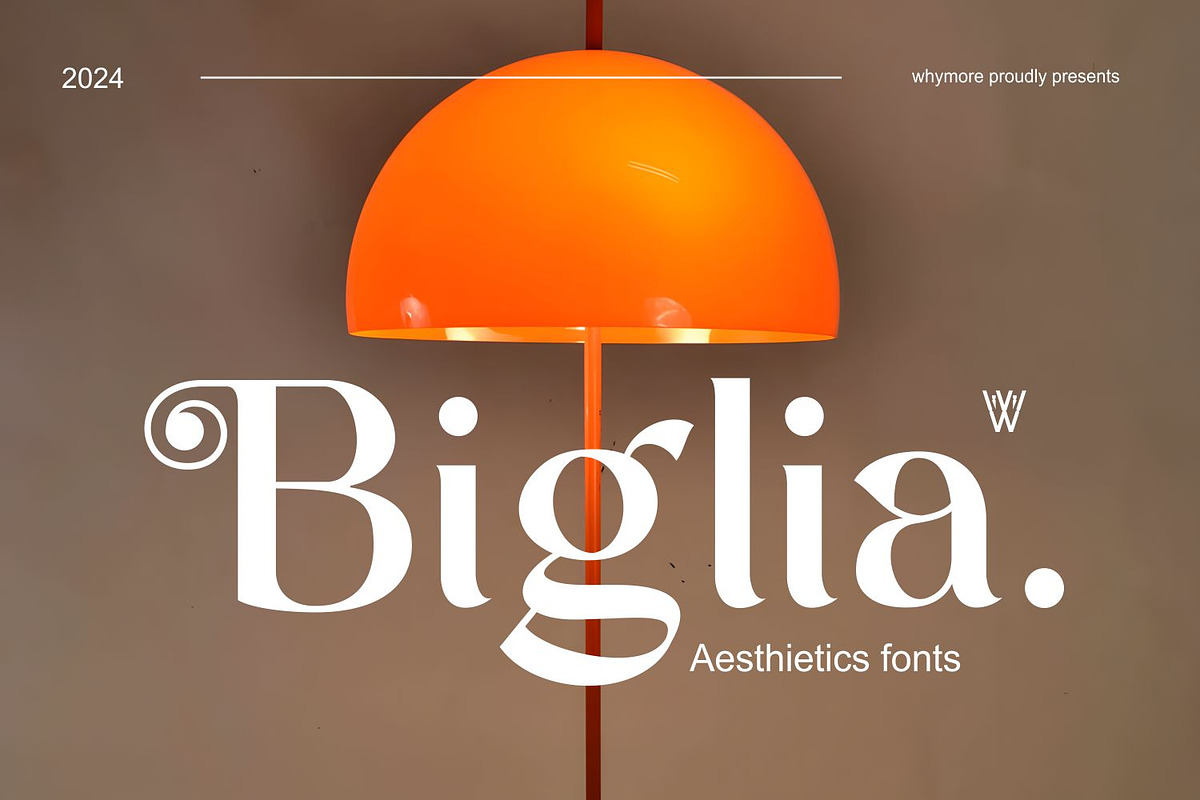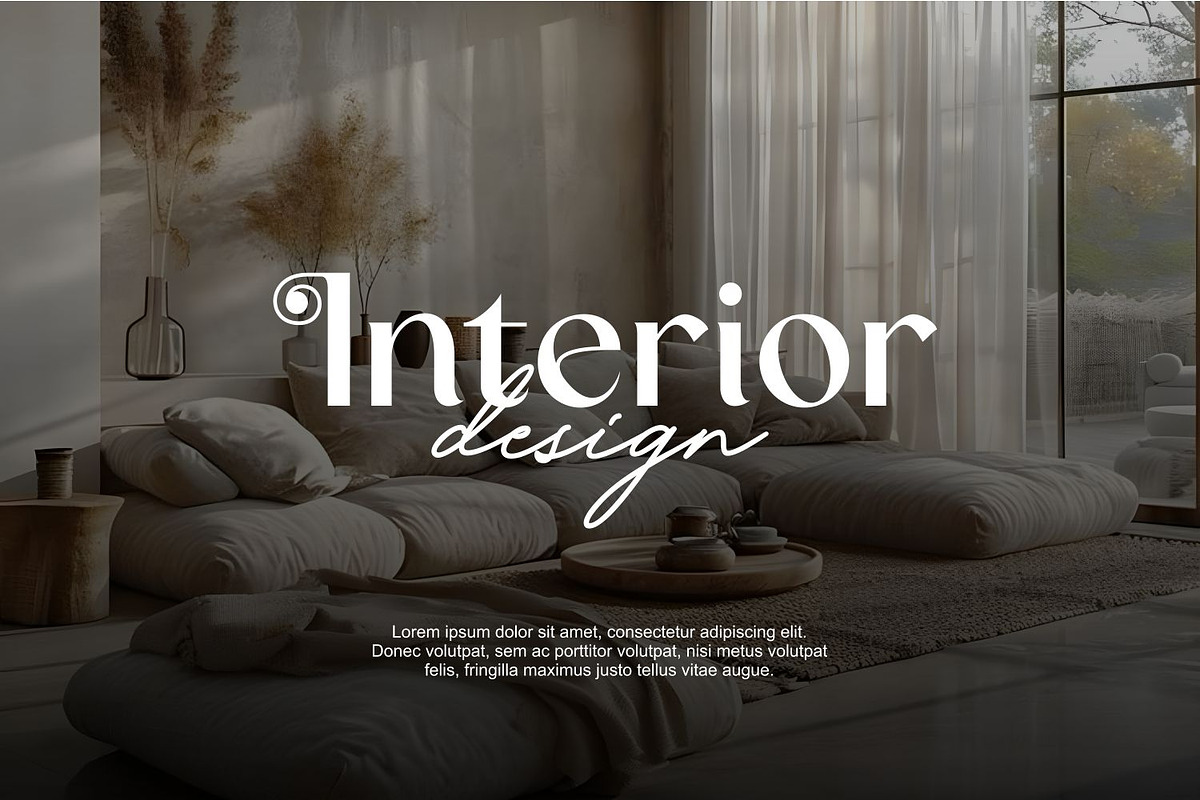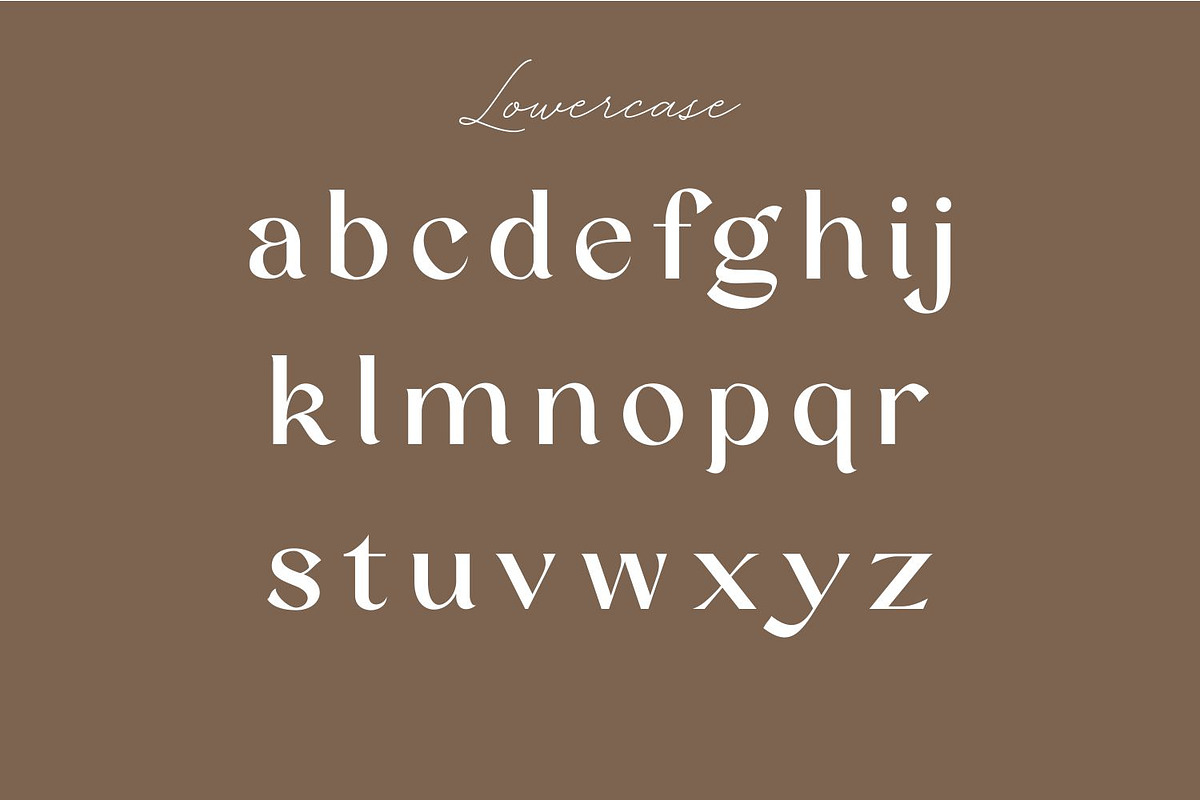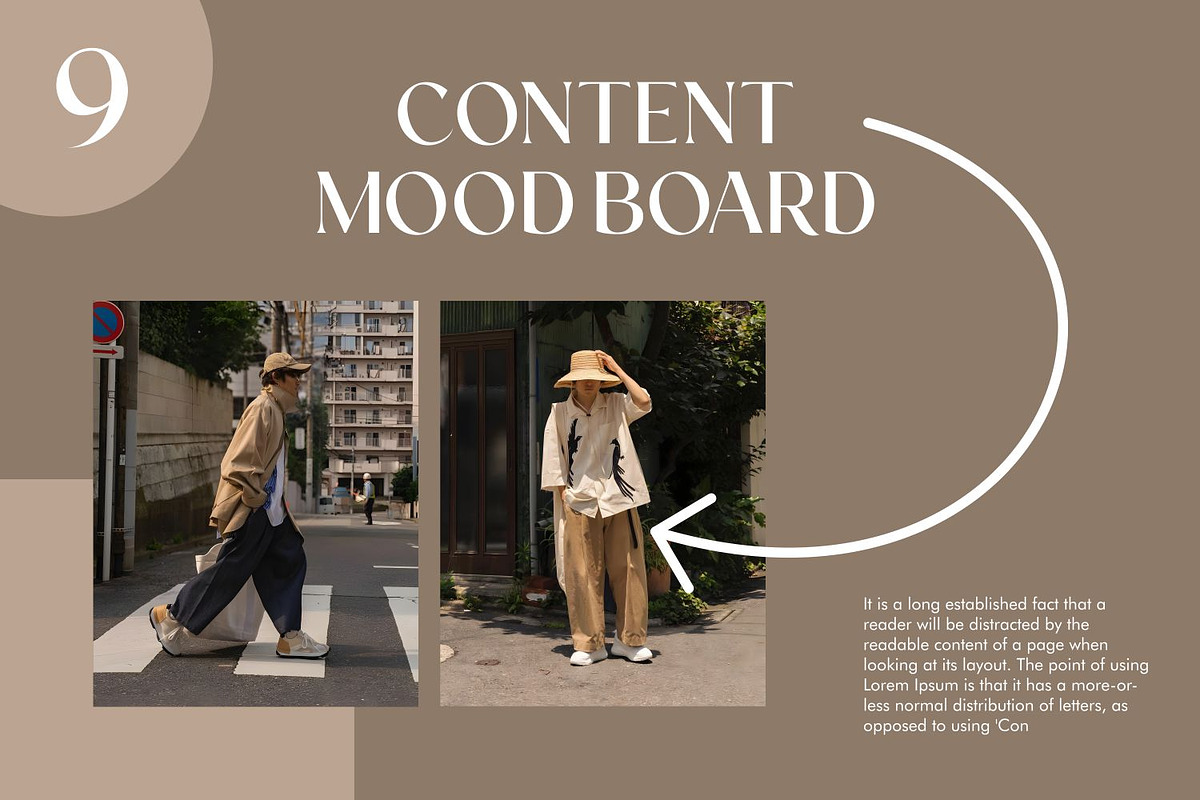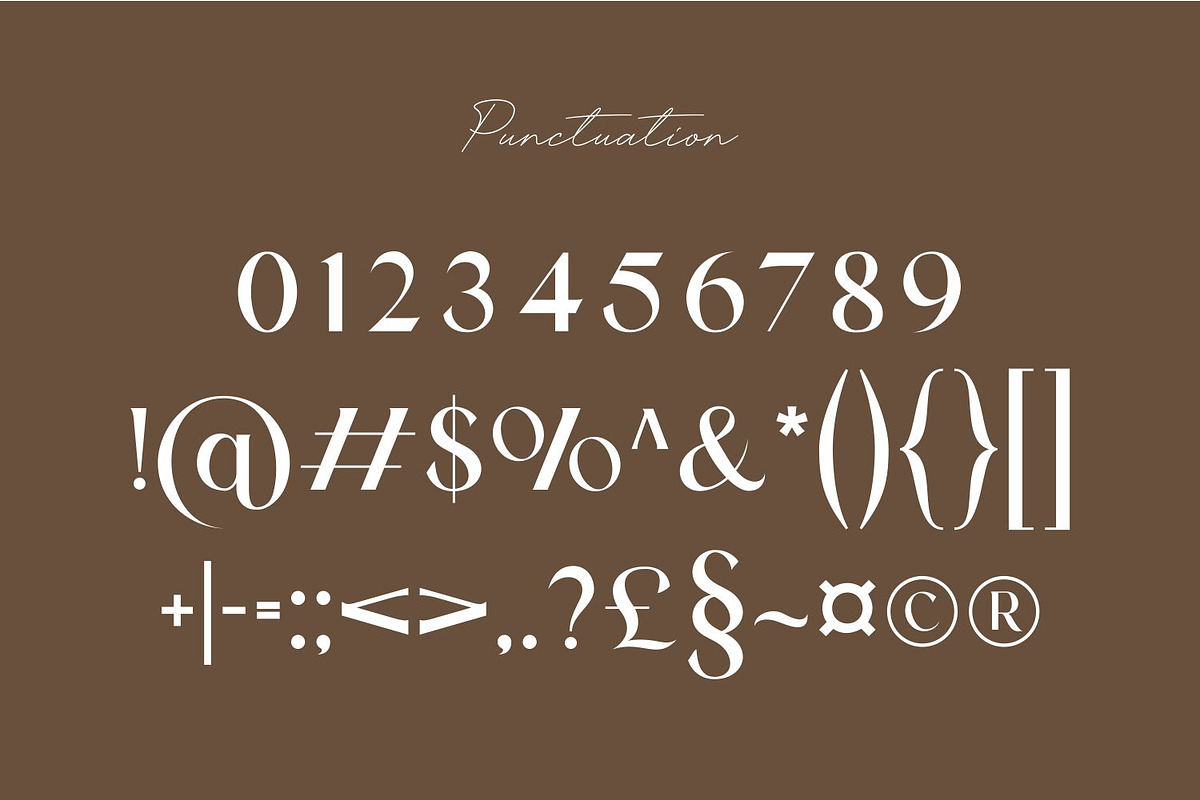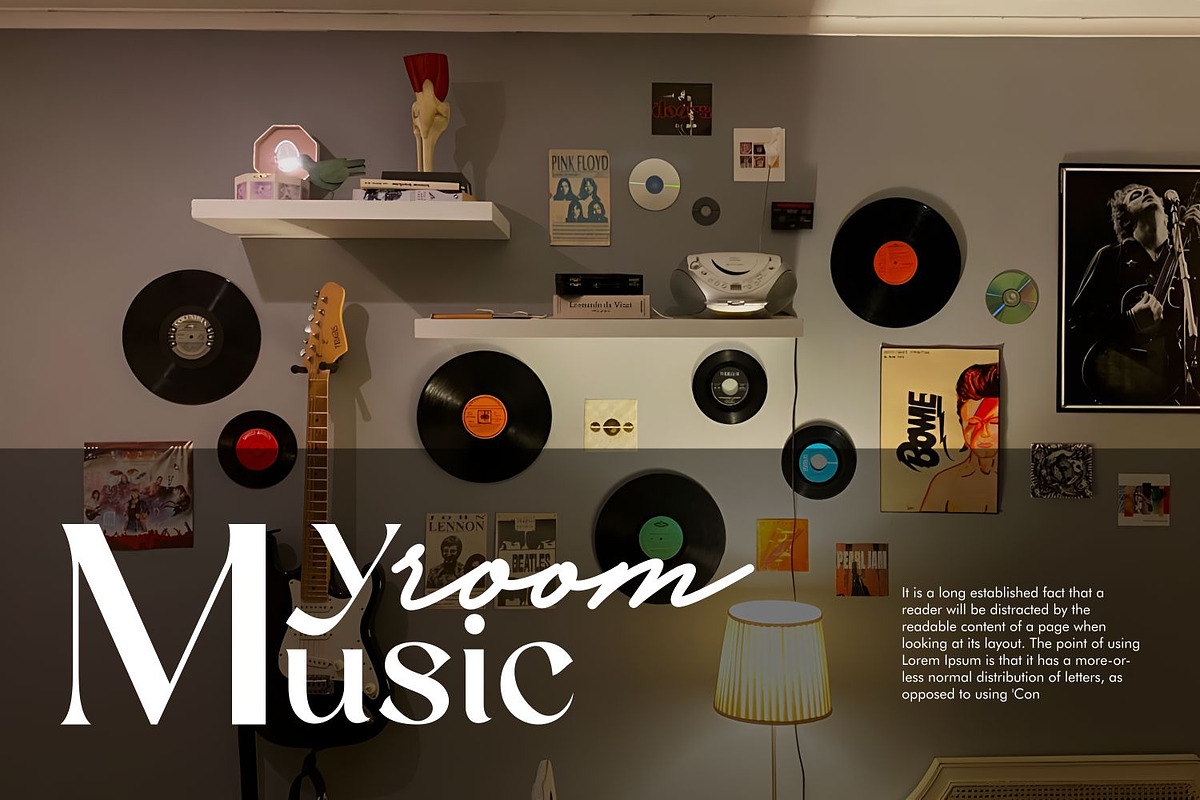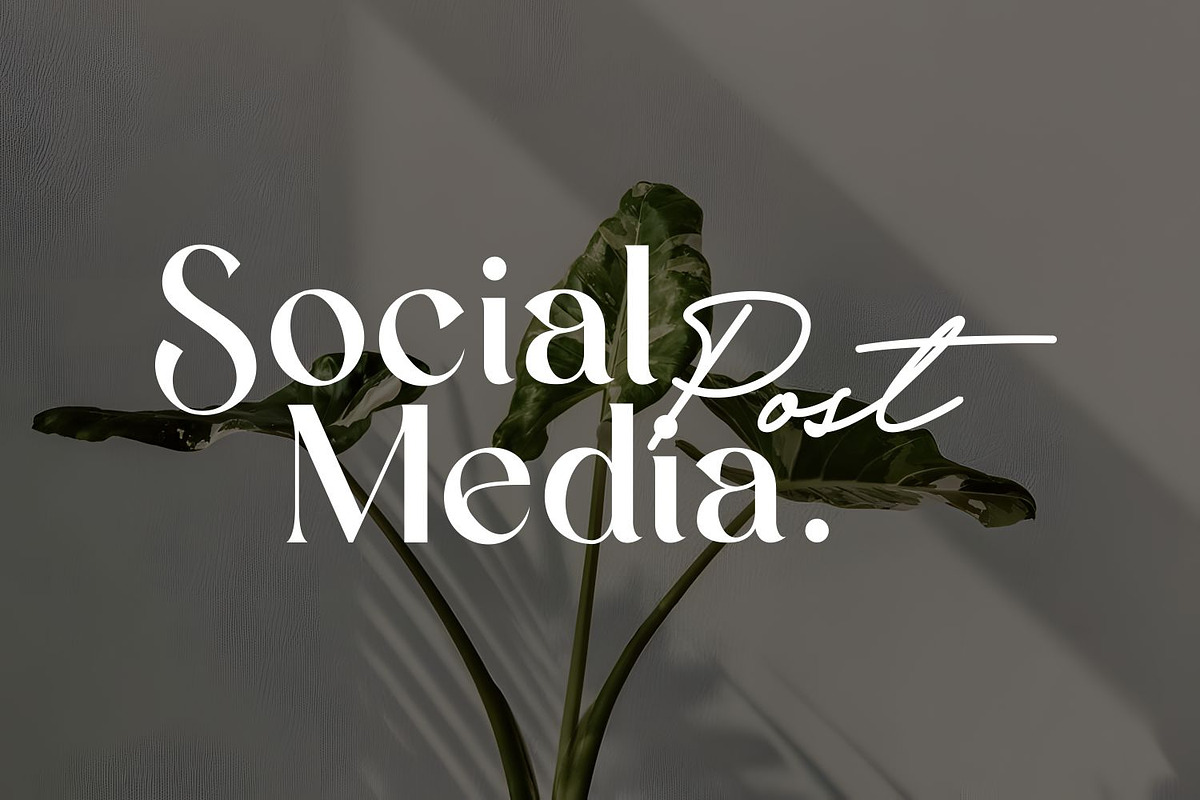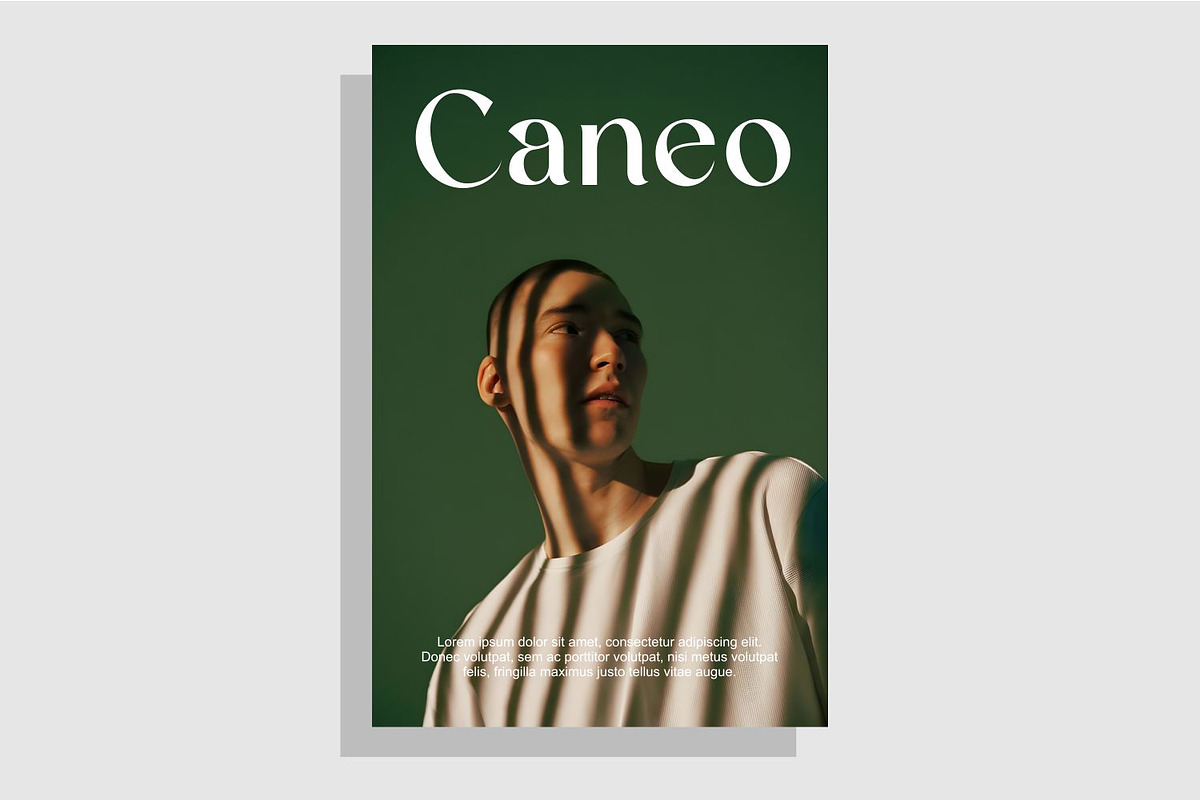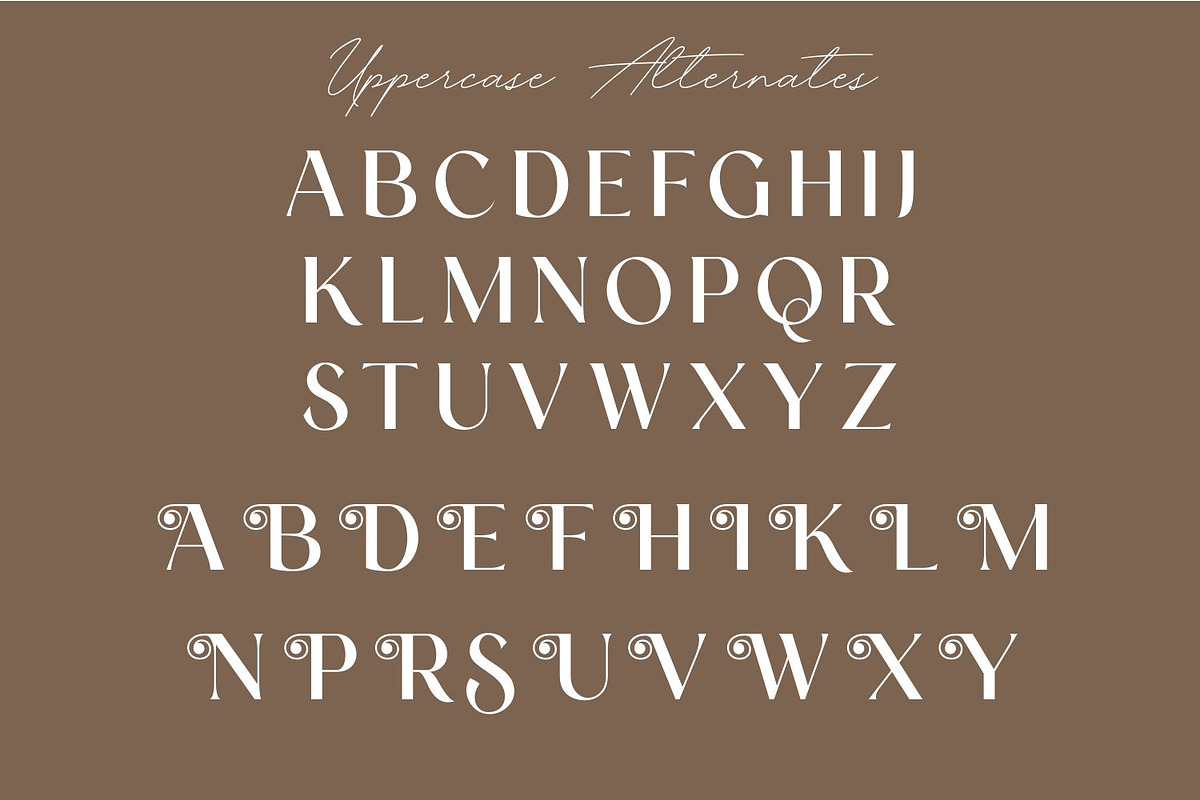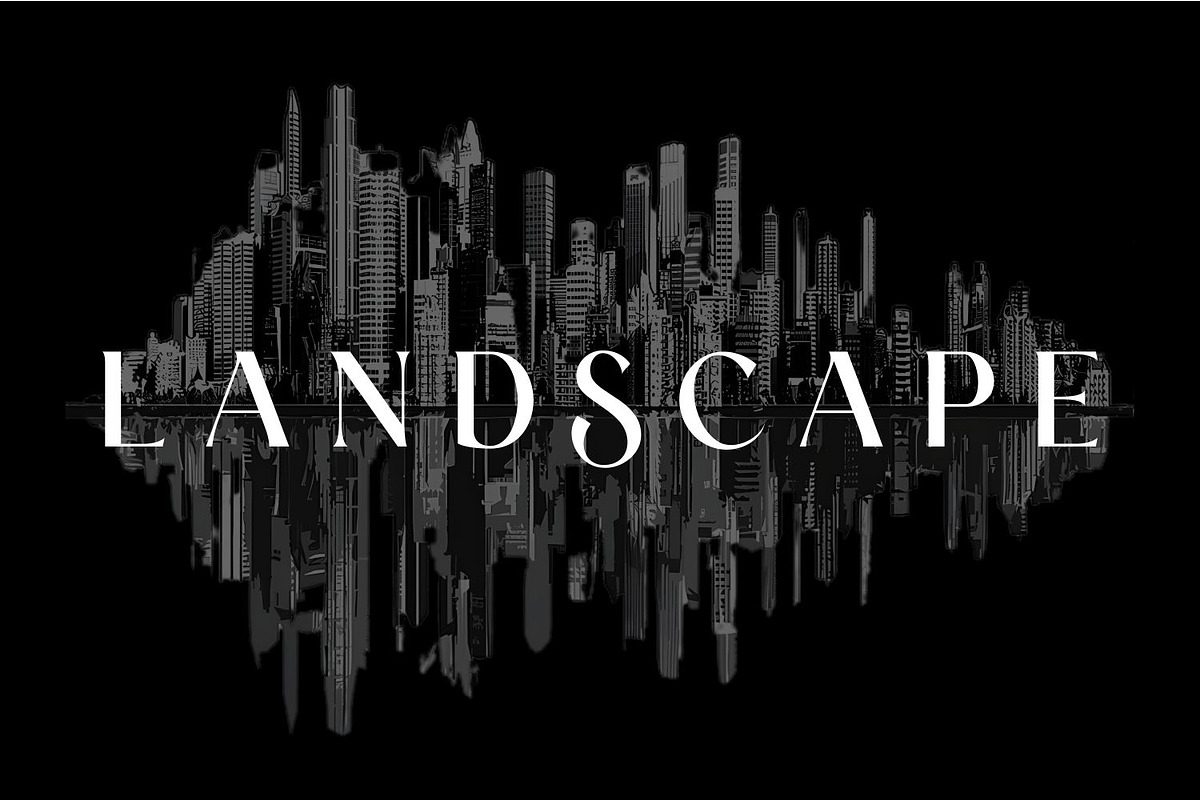
Biglia Modern Bold Condensed Sans
Biglia is the ultimate modern bold condensed sans-serif font, crafted to deliver impact and sophistication to your design projects. Its sleek and narrow proportions make it ideal for creating bold headlines, professional branding, editorial layouts, and digital content.
Compatible with Adobe Illustrator, Photoshop, Canva, and Figma, Biglia ensures your designs stand out in a competitive creative space. Its condensed structure not only saves space but also amplifies visual impact, making it a must-have for contemporary design.
Additional Features: ✅ Multilingual Support ✅ Uppercase Alphabet A-Z ✅ Lowercase Alphabet a-z ✅ Alternate Characters ✅ Numbers 0-9 ✅ Selected Punctuation